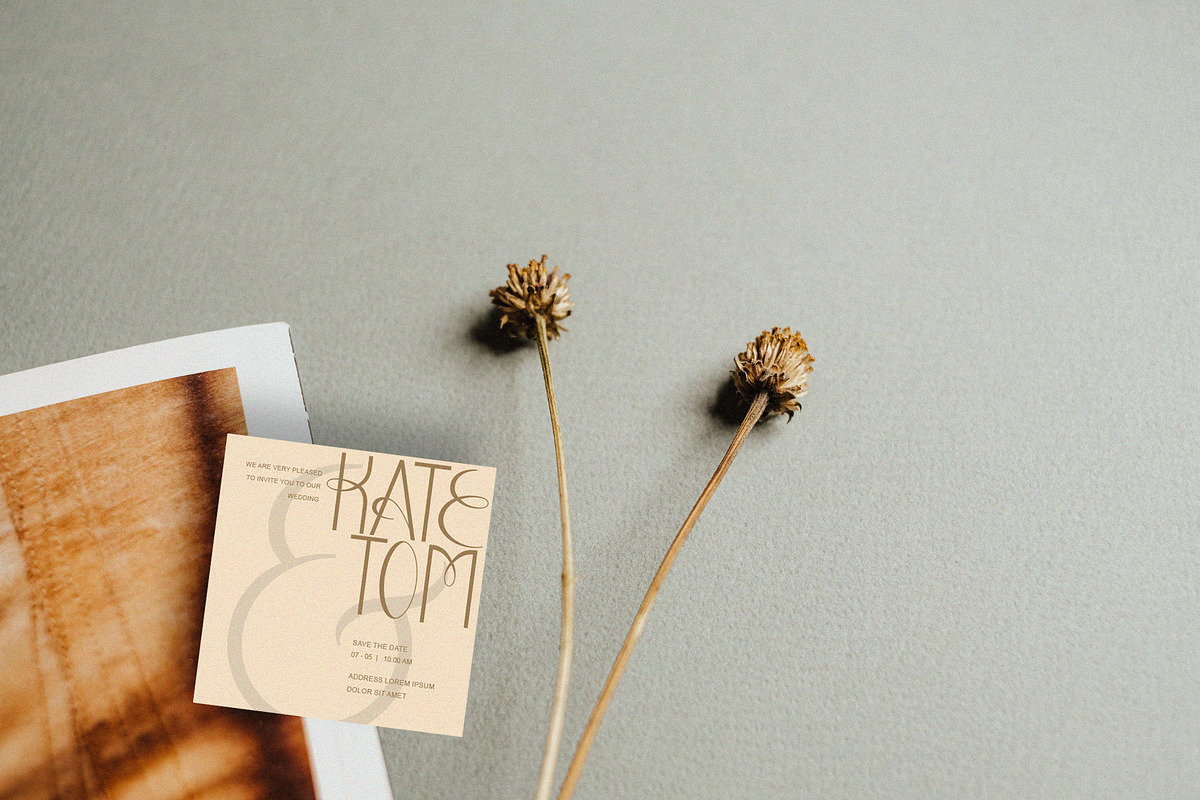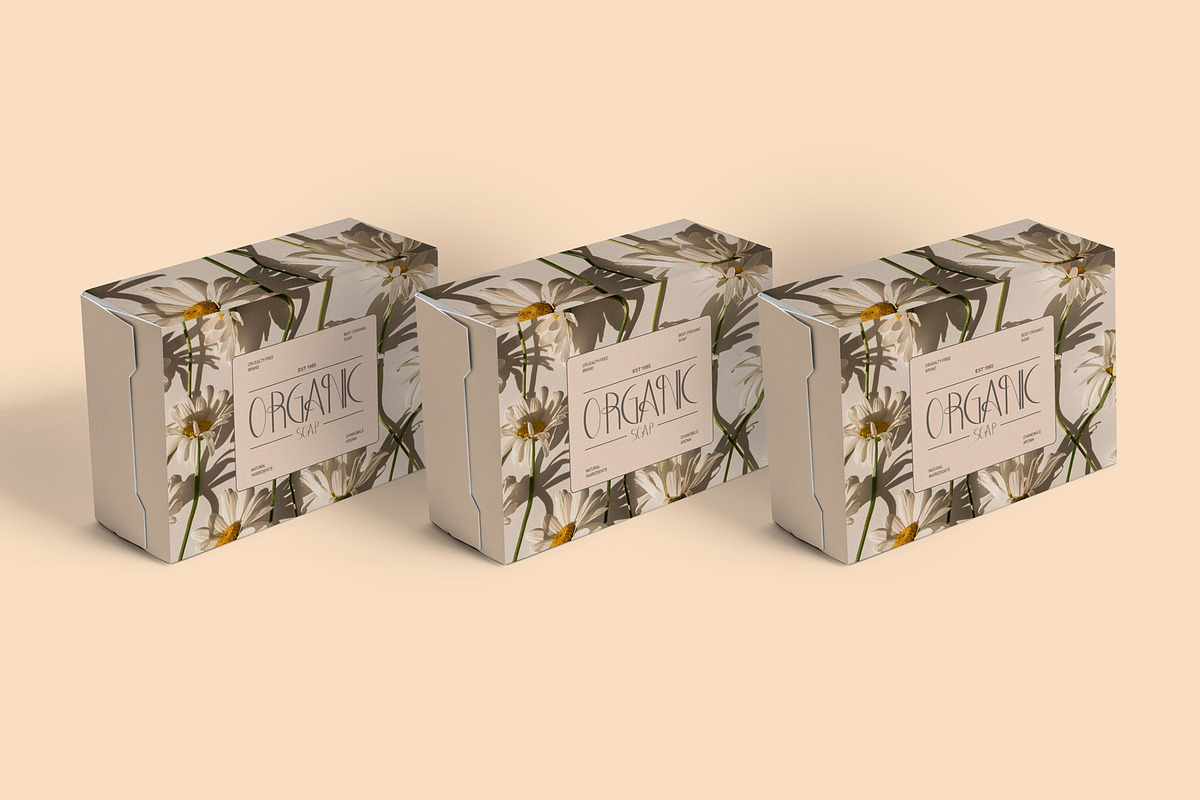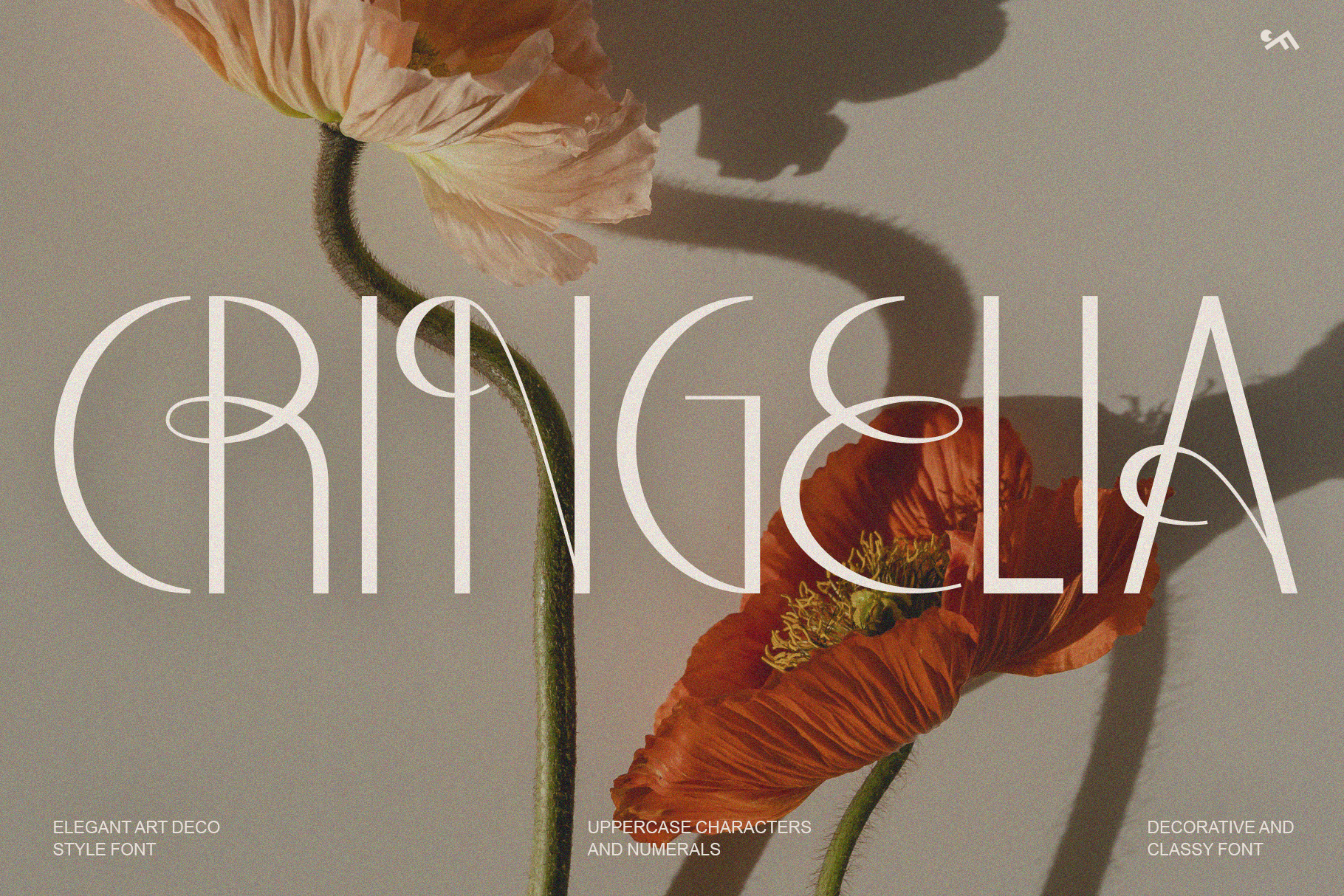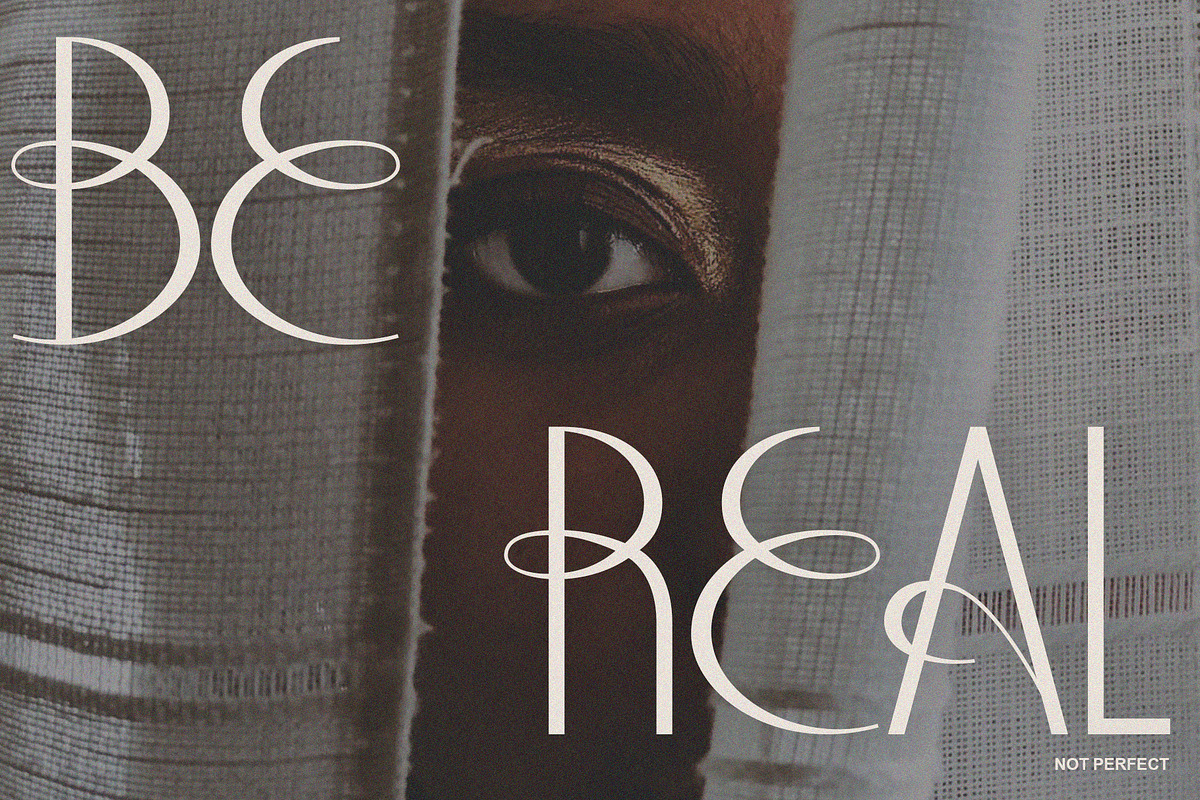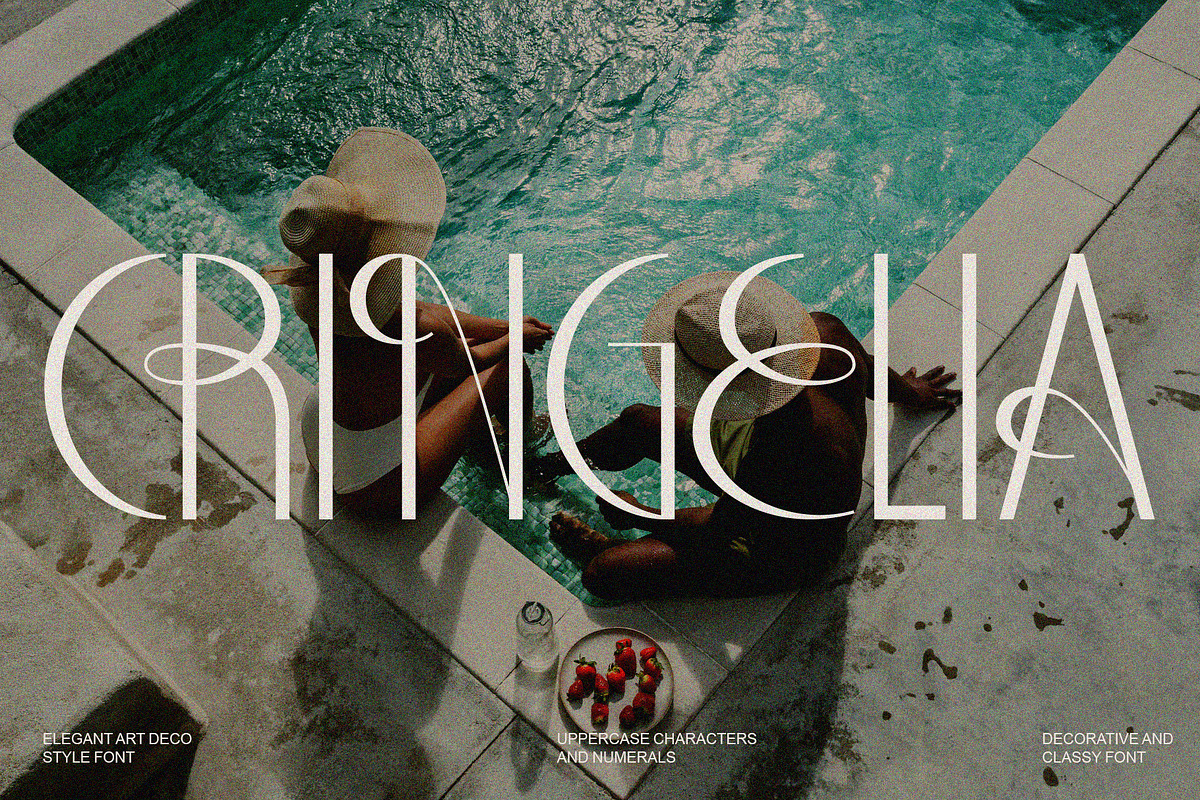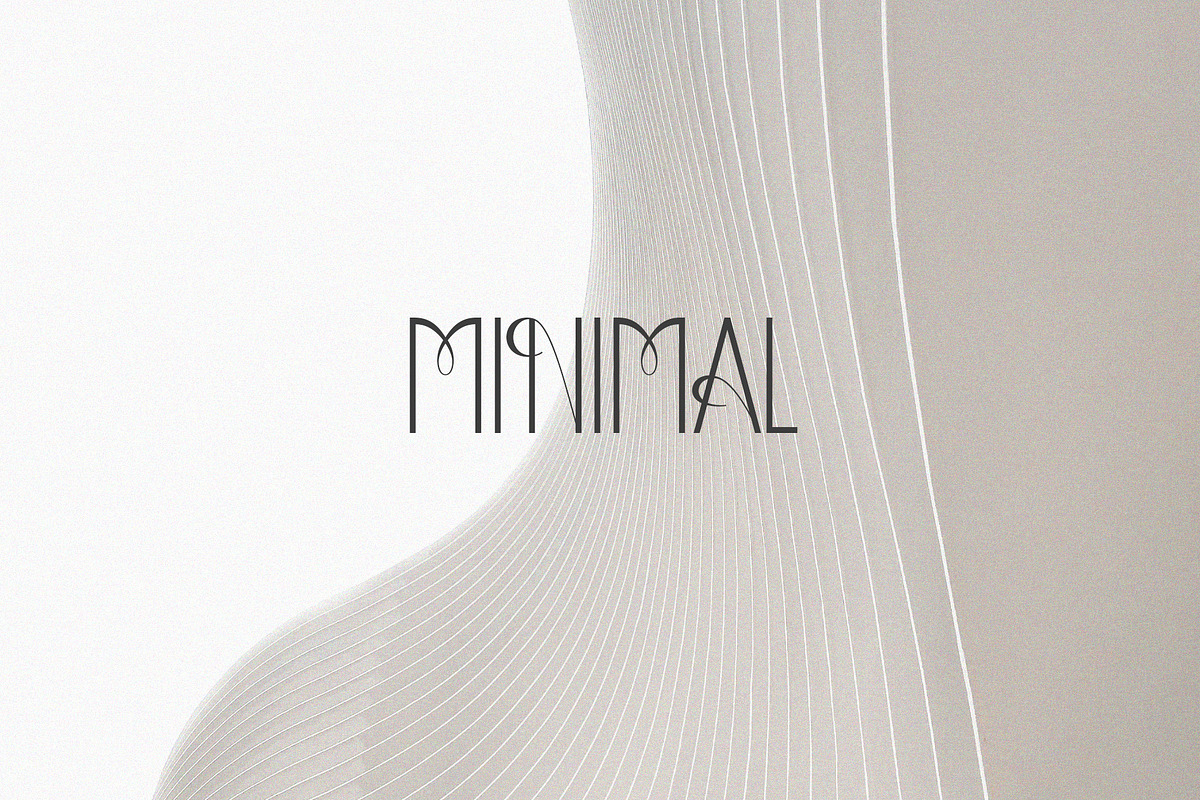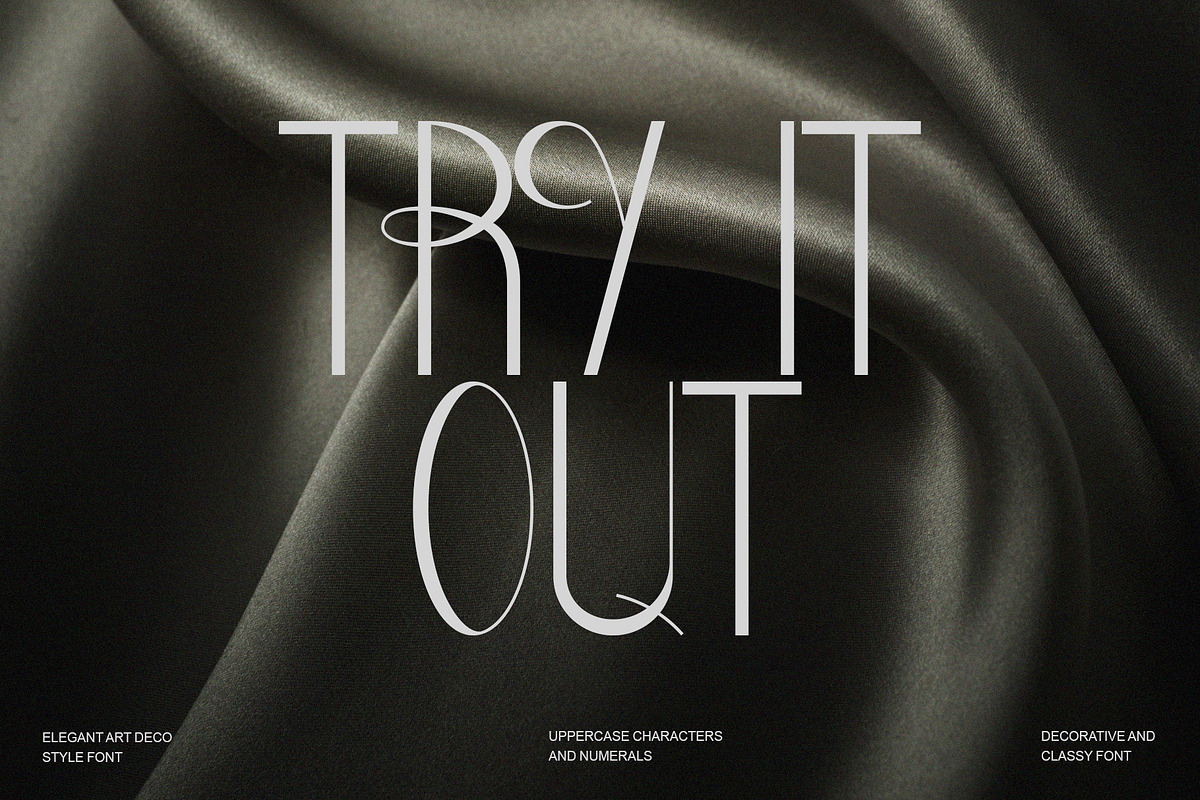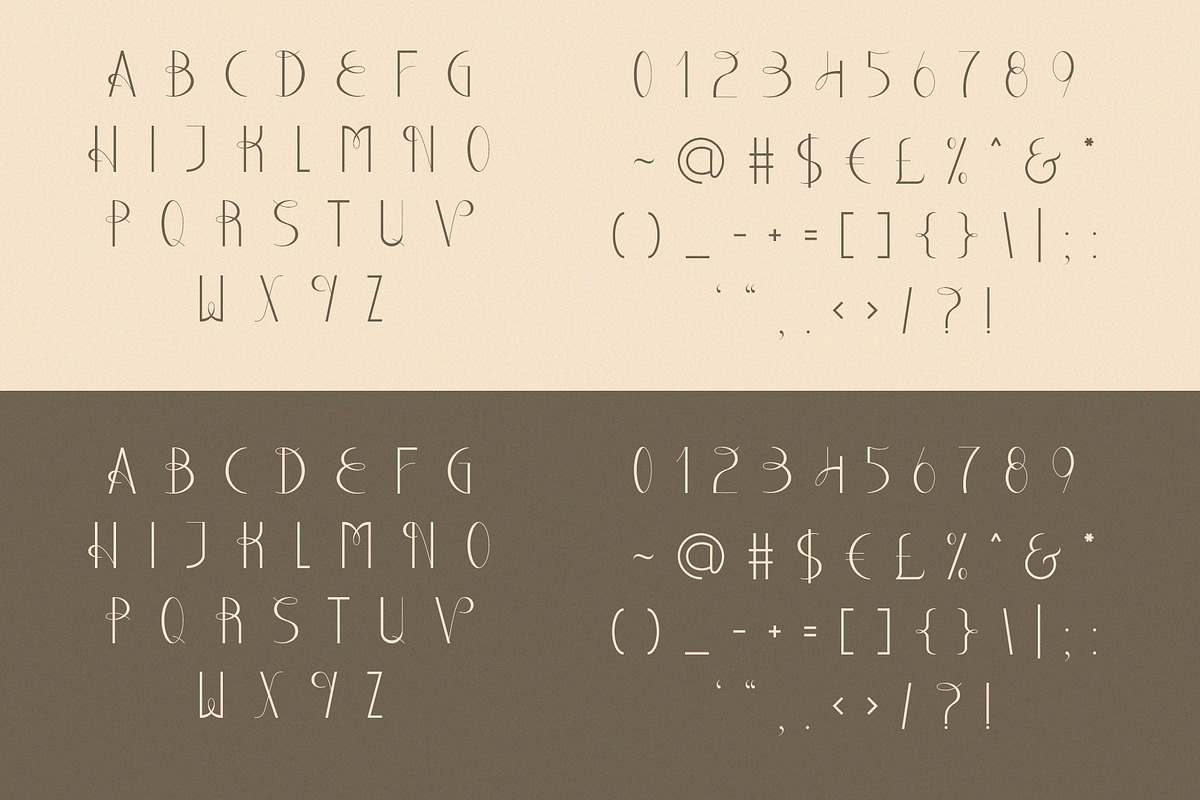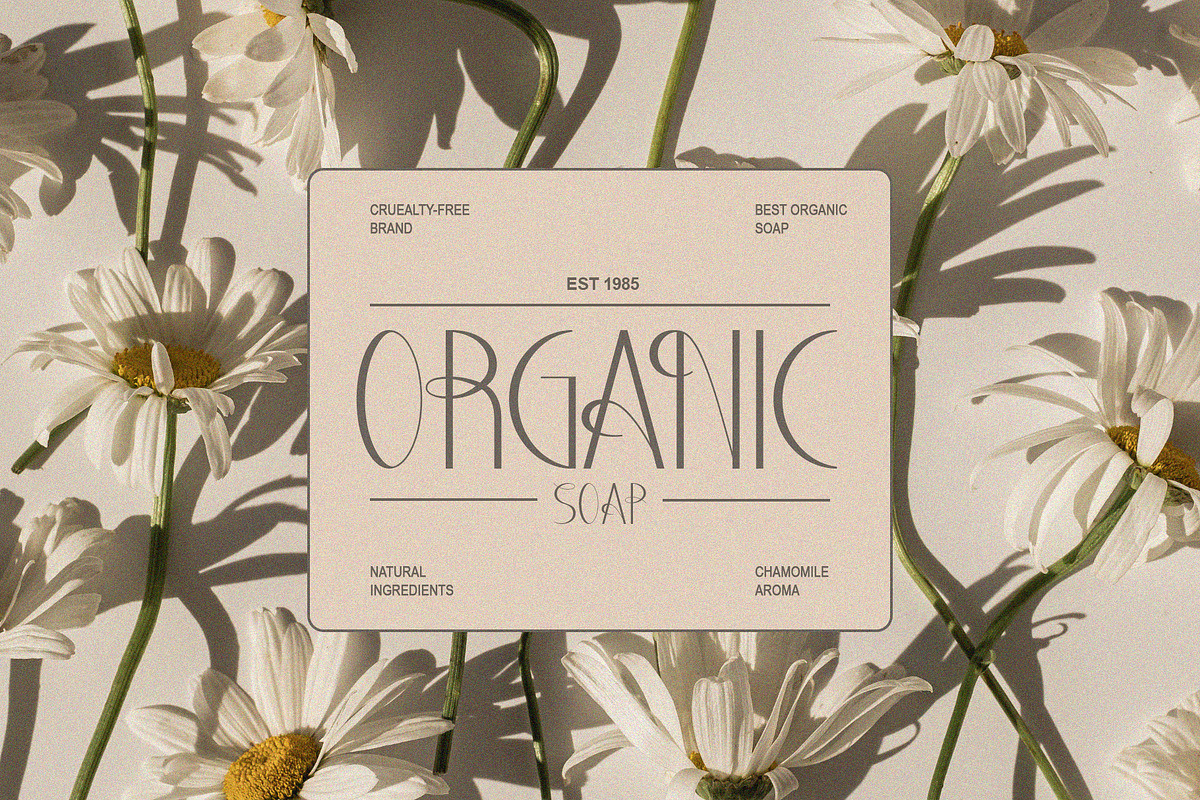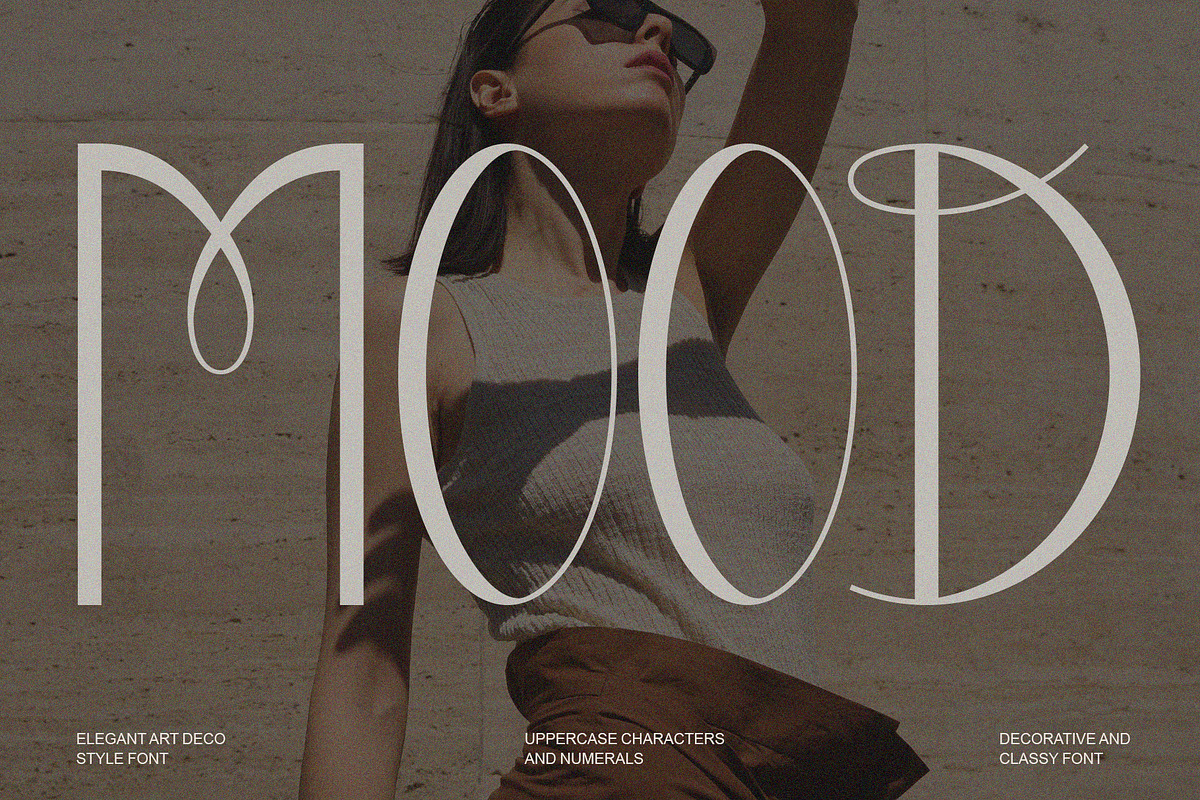
Classy Decorative Font - CRINGELIA
Introducing classy elegant art deco style uppercase font "Cringelia". Use this classy and decorative ornamental typeface with swirls when you need to give elegant and luxury feel to your designs.
This uppercase font works great in modern and vintage styles when you need a good accent for creative style titles, headlines. It’s great for various print and web projects - especially wedding invitations, posters and banners, blogs, flyers, short quotes in social media, brochures, packaging, business cards, etc. "Cringelia" font looks beautiful in earthy color palettes (especially brown), as well as black & white when you need to give to your design minimalist feel.